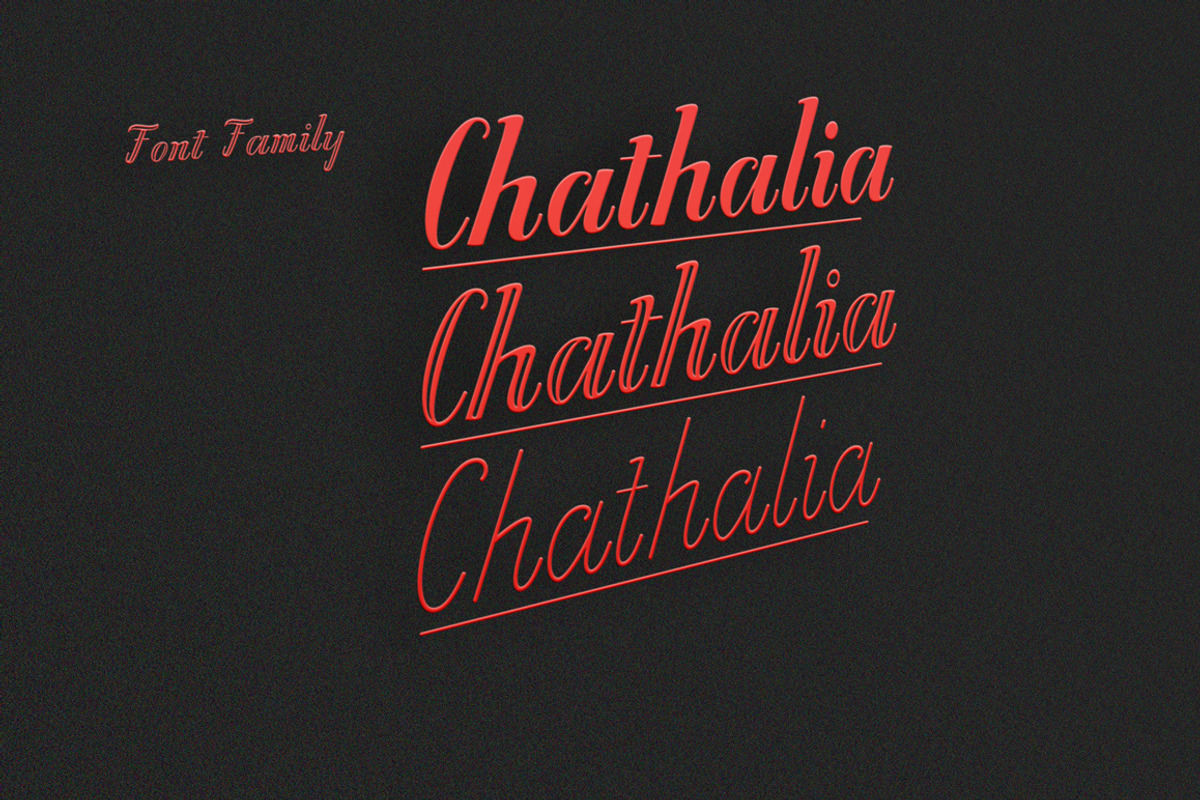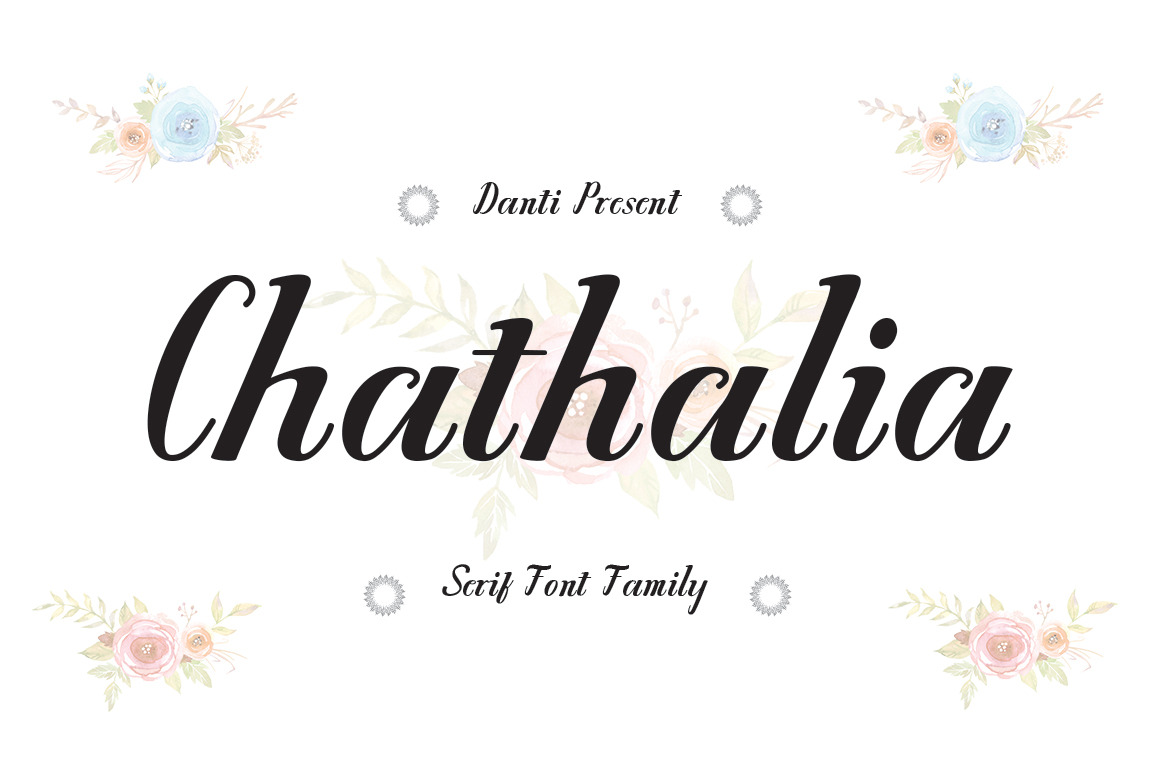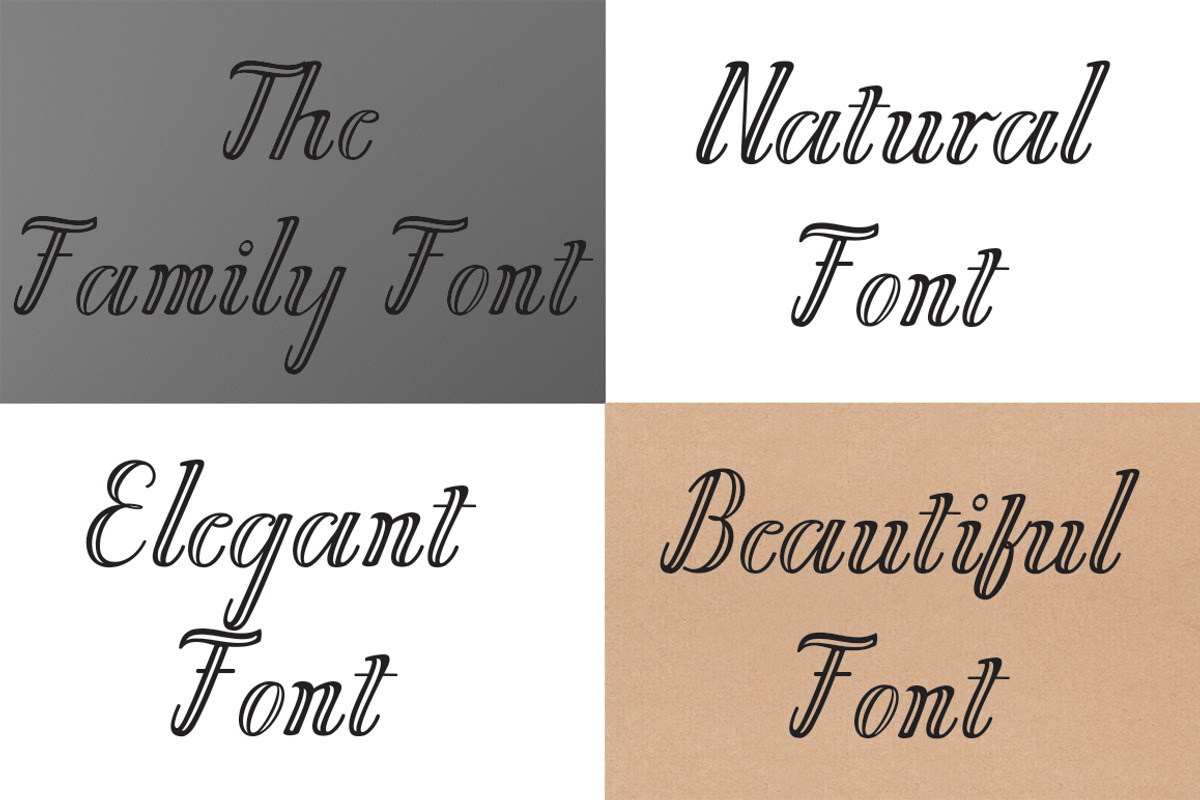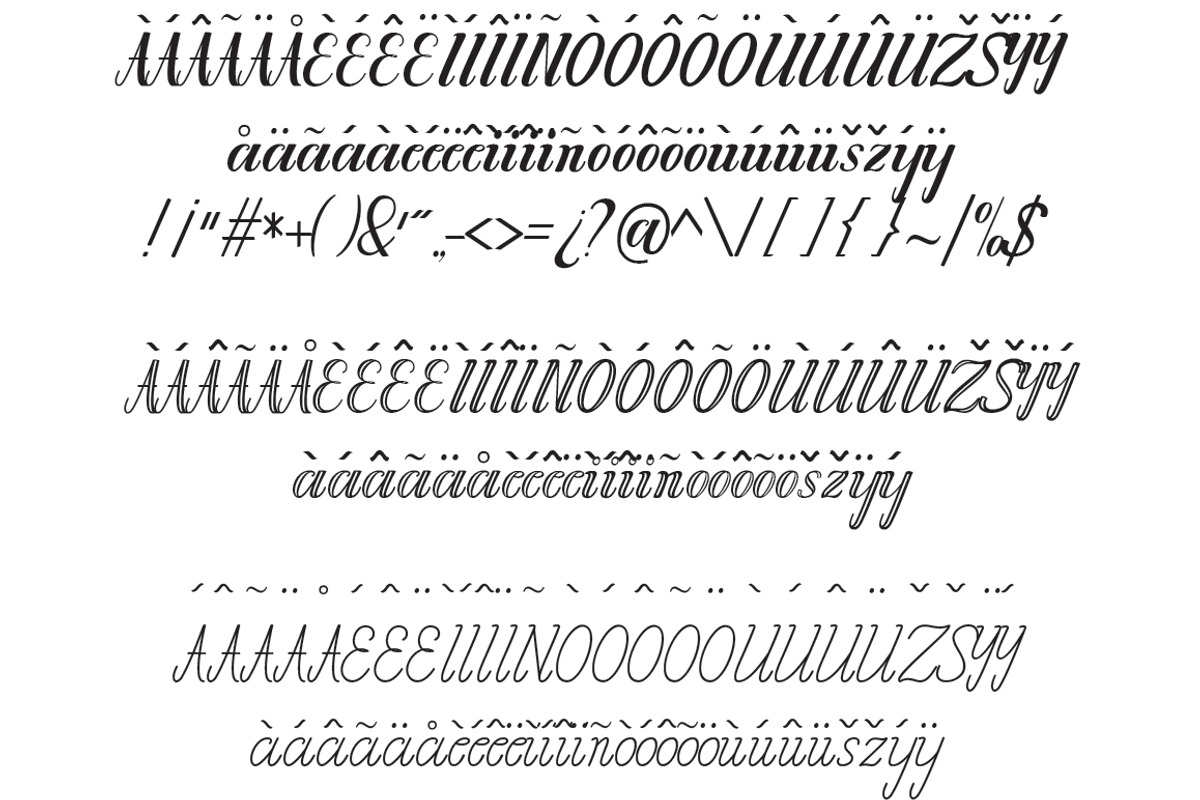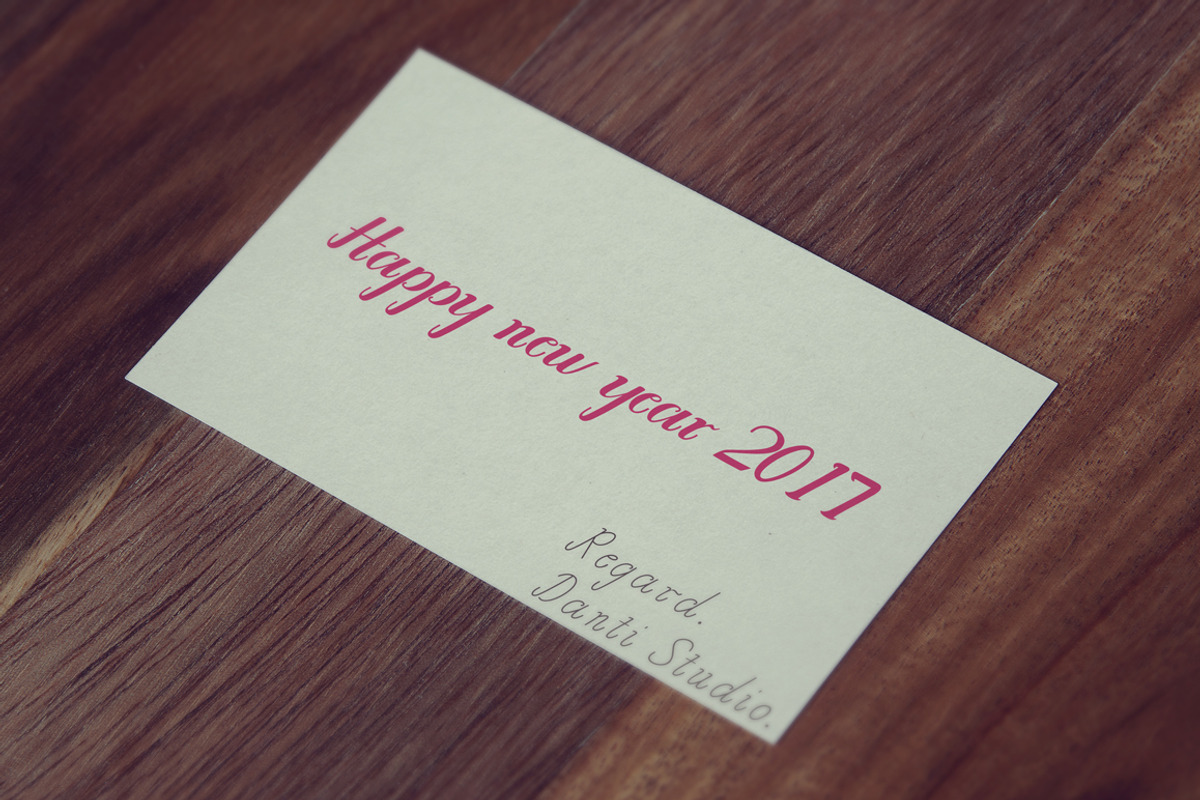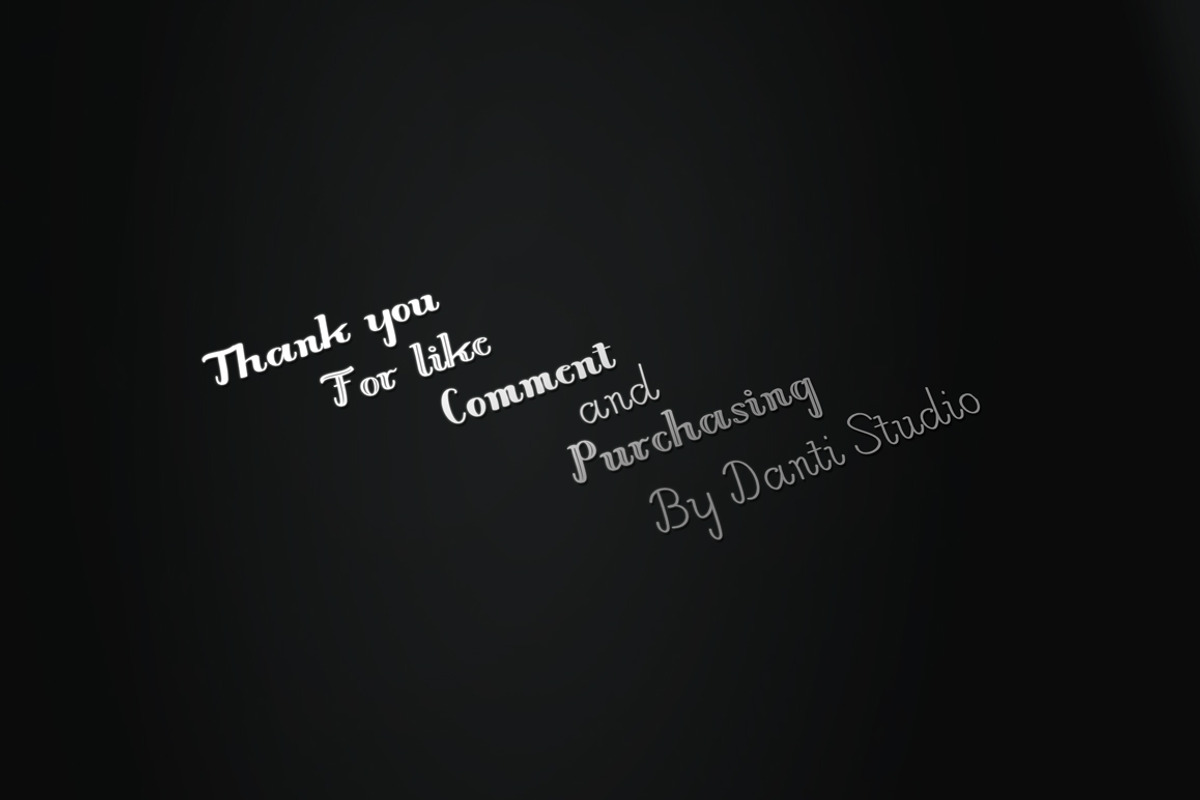
Chathalia Font Family
Chathalia Font Family is new serif font has a sleek typeface, font is very simple and easy to manipulate: logo, slogan and made in advertising messages.